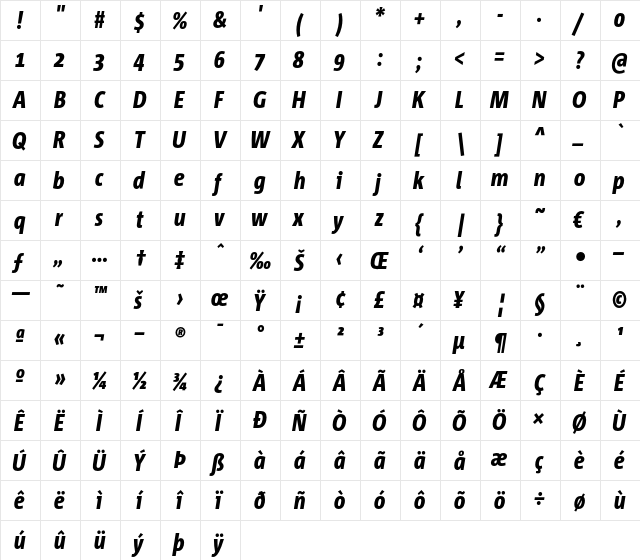
Corpid Cd Heavy Italic
Design Context for Corpid Cd Typeface
Corpid Cd is a composed and adaptable typeface that performs quietly and consistently across a wide range of design contexts. Its italic angle brings a sense of urgency and motion to the letterforms.
Pro Tip: Try Corpid Cd for annotation and caption copy alongside an upright companion — the contrast in angle creates a dynamic but ordered typographic system.